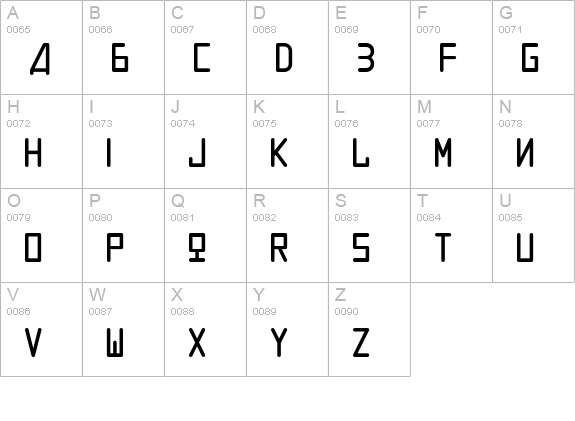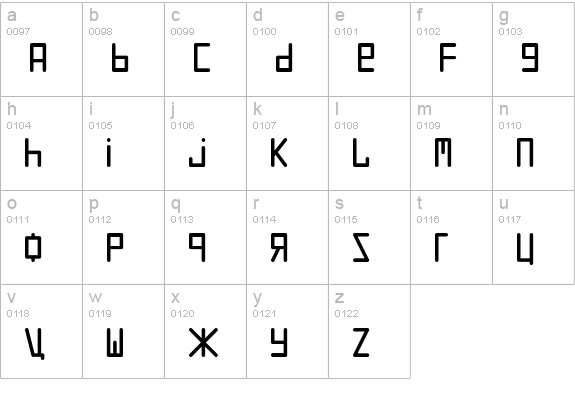
URALthin Font Details
URALthin is a strikingly elegant and modern font that effortlessly captures attention with its refined simplicity. Designed with a sleek and slender aesthetic, this font exudes a sense of sophistication and sophistication, making it an ideal choice for a wide range of design projects. With its clean lines and bold yet delicate strokes, URALthin adds a touch of understated elegance to any creative endeavor. Whether you are designing a logo, creating a brand identity, or crafting a stylish invitation, this font will elevate your work to the next level. One of the most appealing aspects of URALthin is that it is available for free download at FontsMarket.com. This means that you can access its full potential without having to spend a penny. It's a rare gem in the world of fonts, as high-quality designs like this are often accompanied by a hefty price tag. But with URALthin, you can enjoy the benefits of a premium font without breaking the bank. Not only does URALthin offer a visually pleasing aesthetic, but it also boasts excellent legibility. Its slender and well-proportioned letterforms ensure that each character stands out distinctly, even at small sizes. This makes it perfect for a variety of applications, from print materials to digital designs. Furthermore, URALthin comes with a wide range of international language support, making it an inclusive choice for designers working on multilingual projects. Whether you need to communicate in English, Spanish, French, German, or any other language, this font has got you covered. In conclusion, URALthin is a must-have font for anyone seeking a sleek and refined typography solution. Its free availability for download at FontsMarket.com makes it an even more irresistible option. So, why wait? Elevate your designs with URALthin and make a lasting impression.